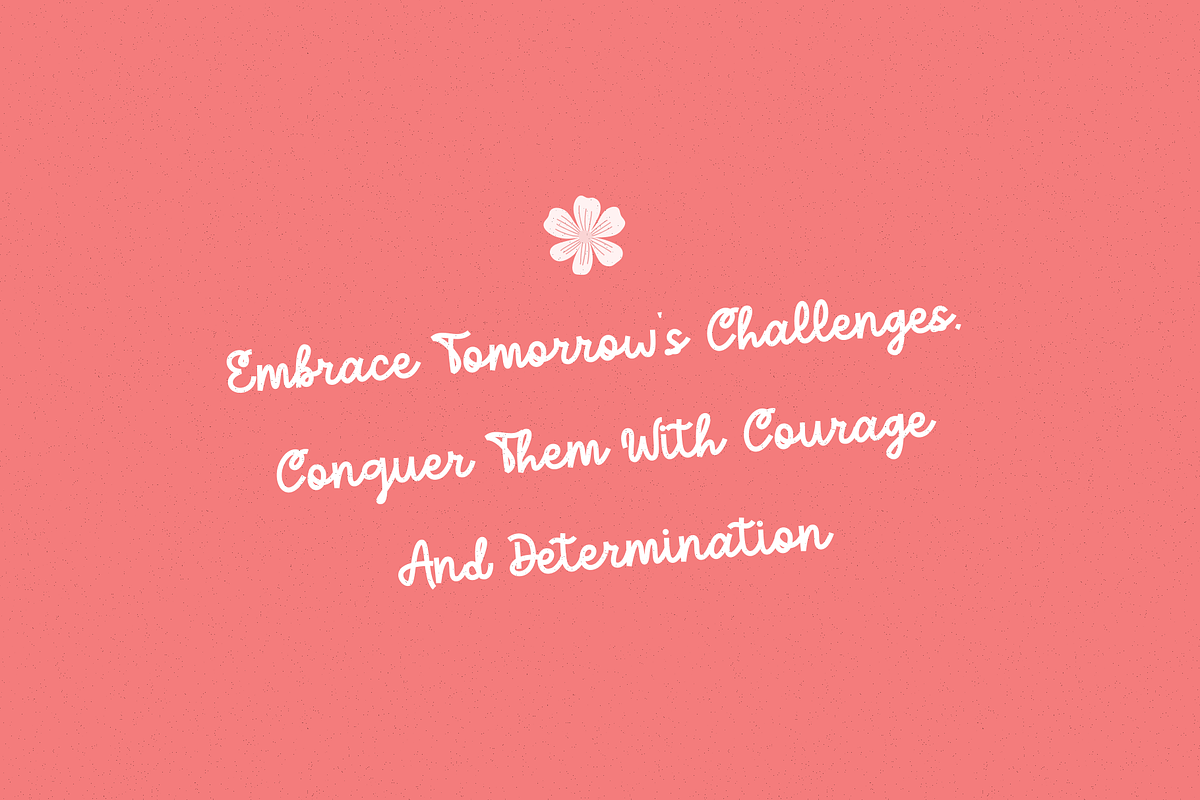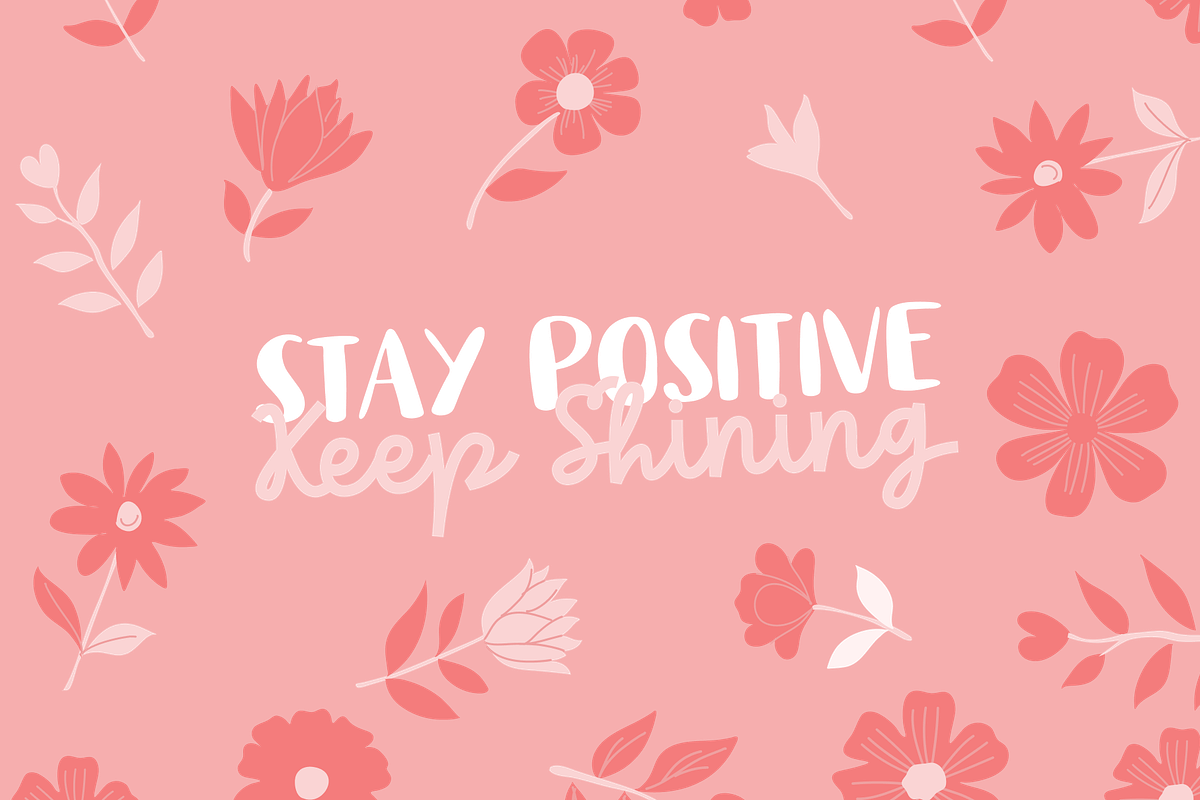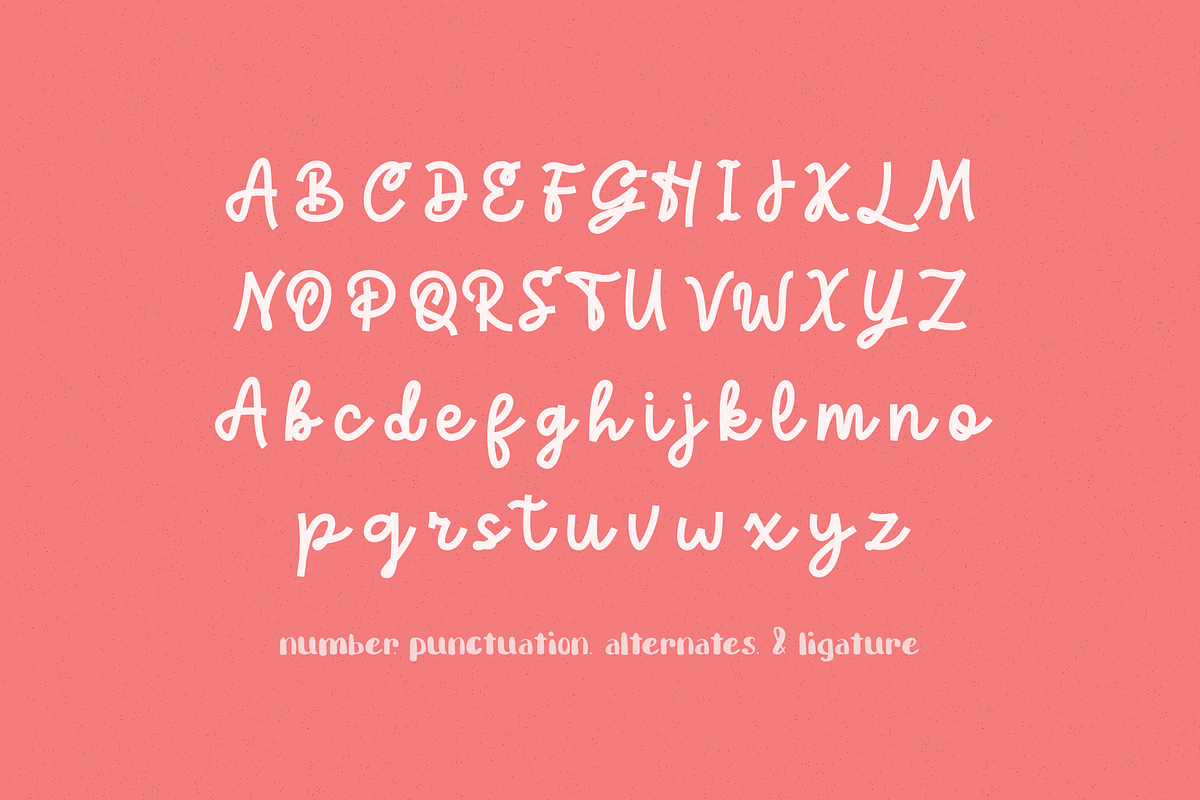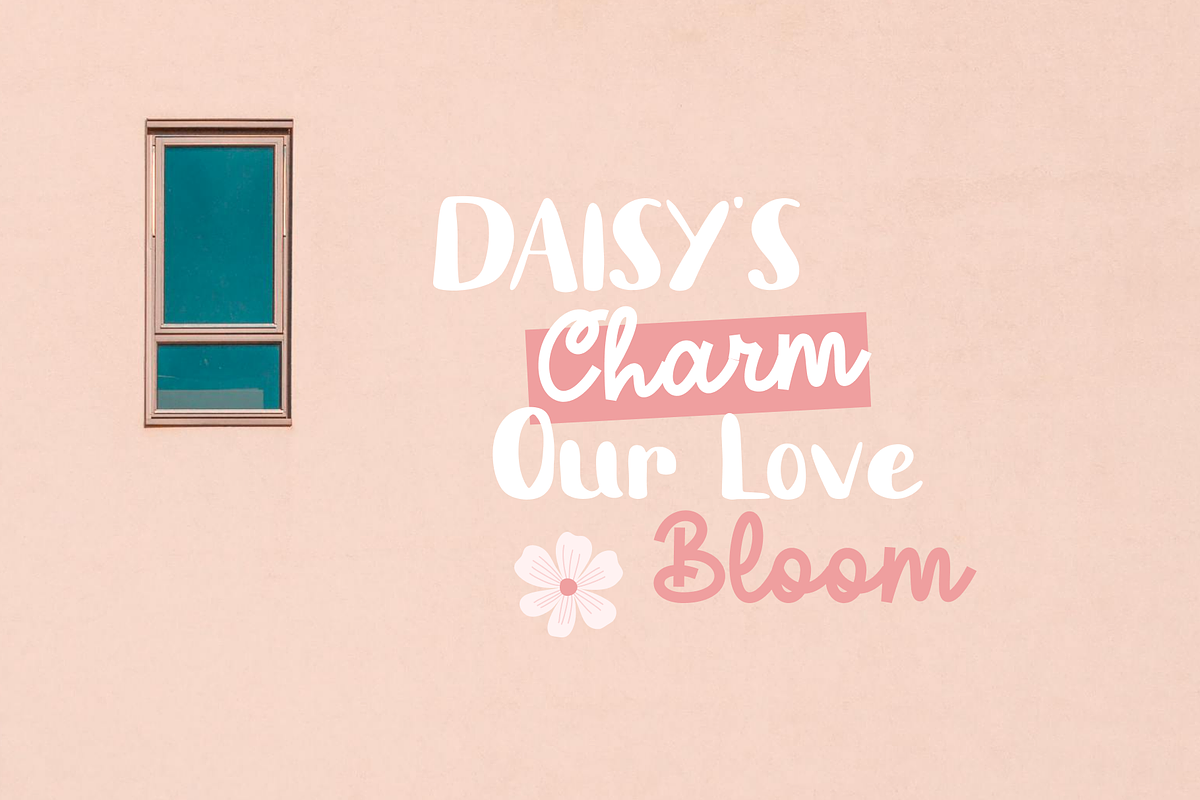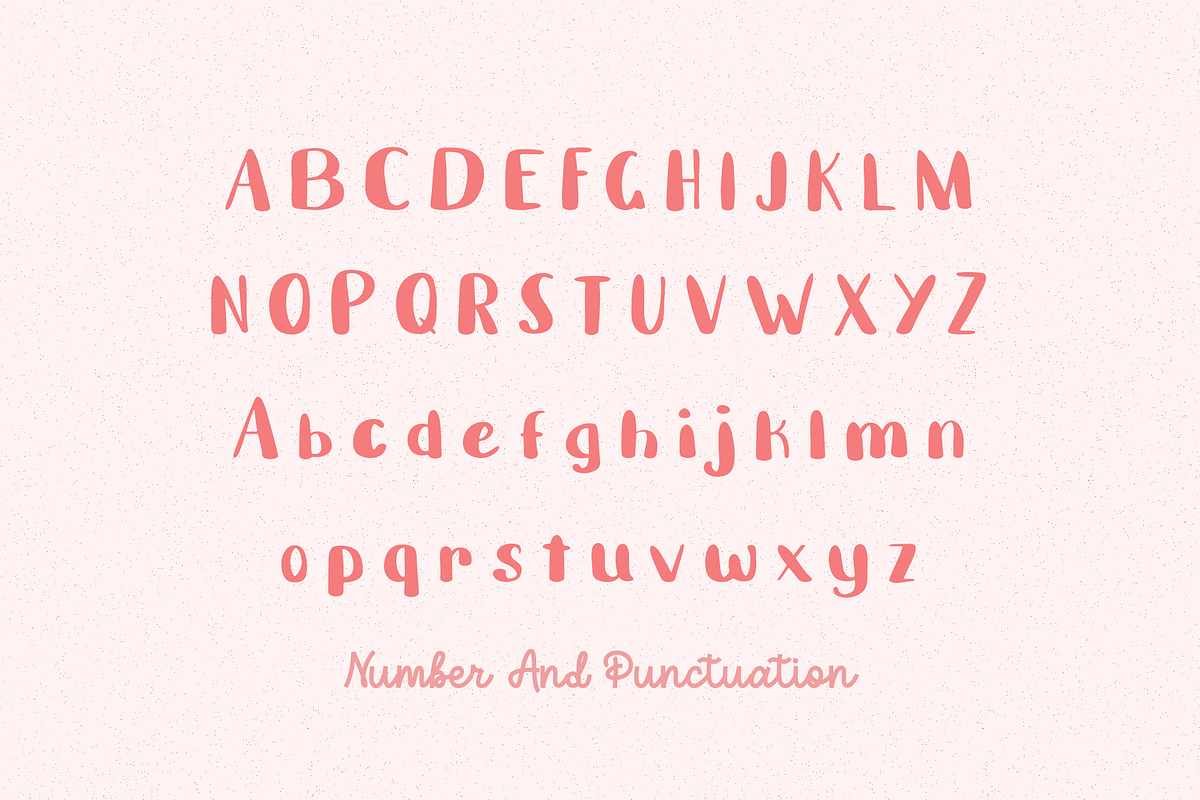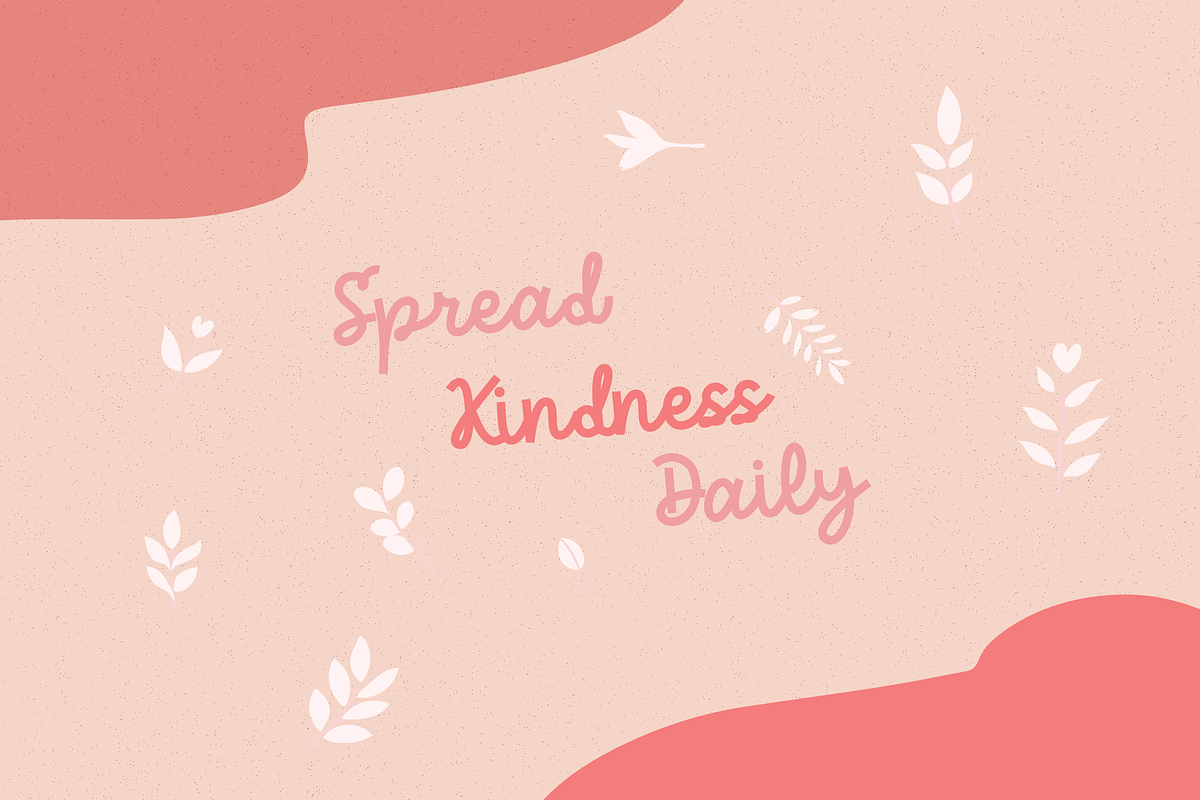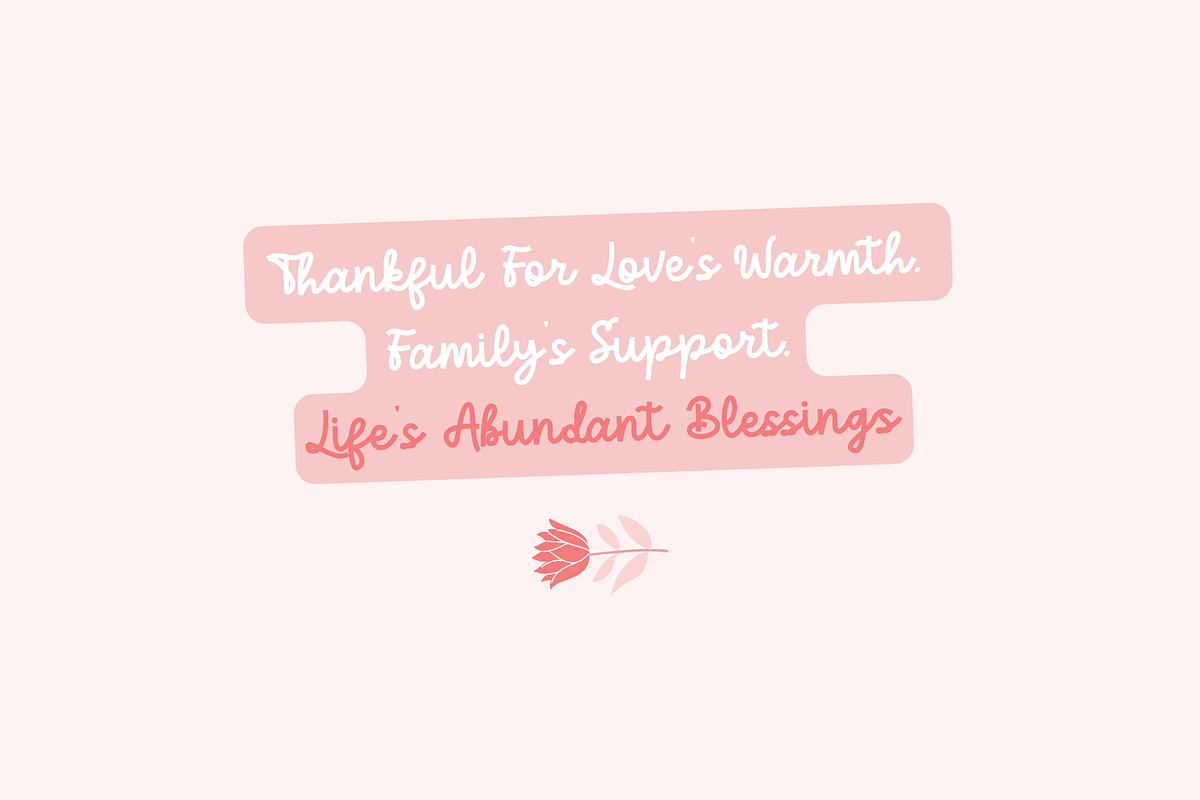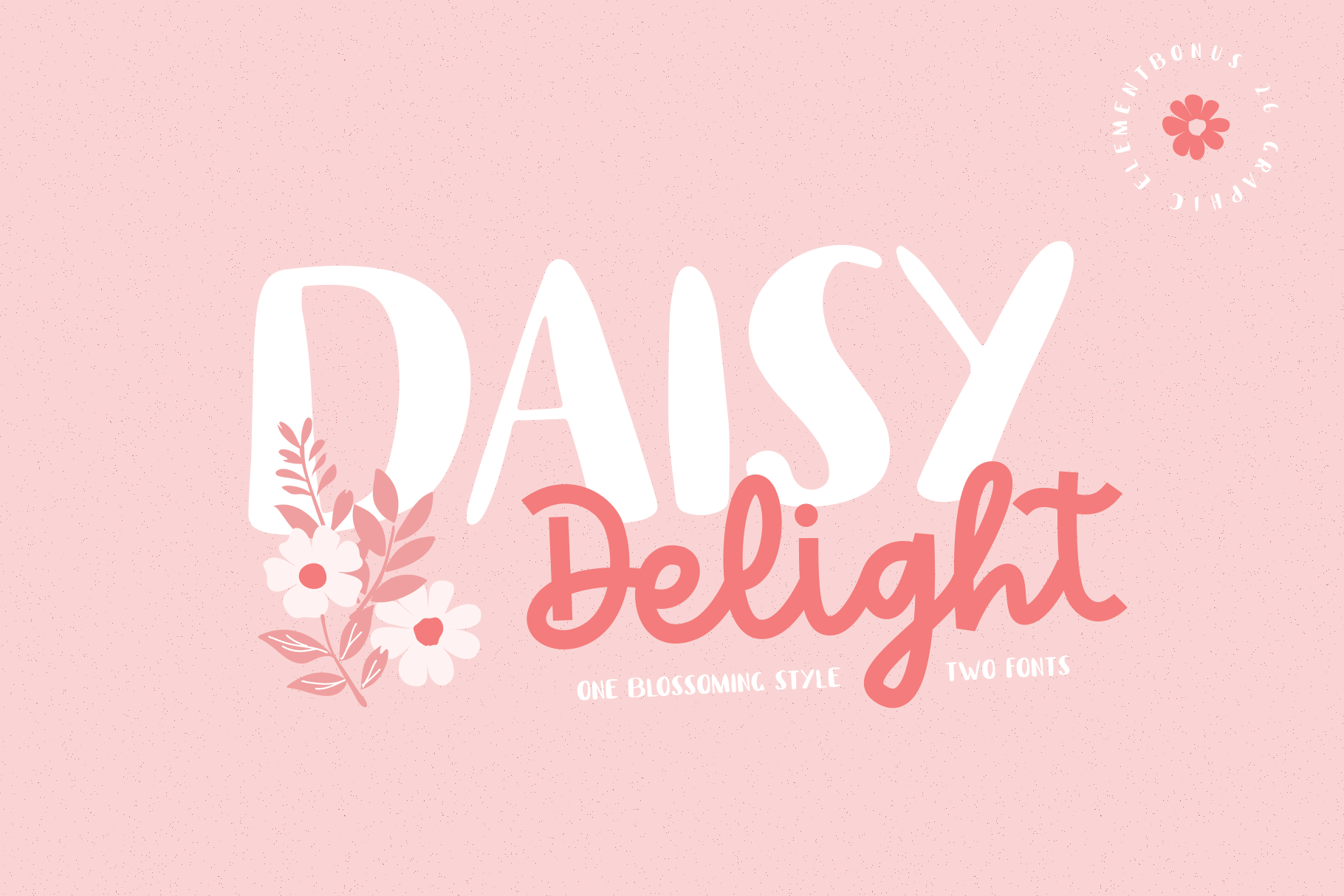
Daisy Delight - Blooming Font Duo
Introducing Daisy Delight Font Duo: Immerse yourself in the beauty of spring blooms with Daisy Delight Font Duo. This fun duo features simple handwritten and playful calligraphy fonts, inspired by the joyful essence of daisies in full bloom. Perfectly capturing the essence of the season, Daisy Delight Font Duo brings a fresh floral touch to your creative projects.
- Uppercase and lowercase letters
- Ligature & alternates feature on script font
- Numerals and punctuation
- 26 Graphic elements